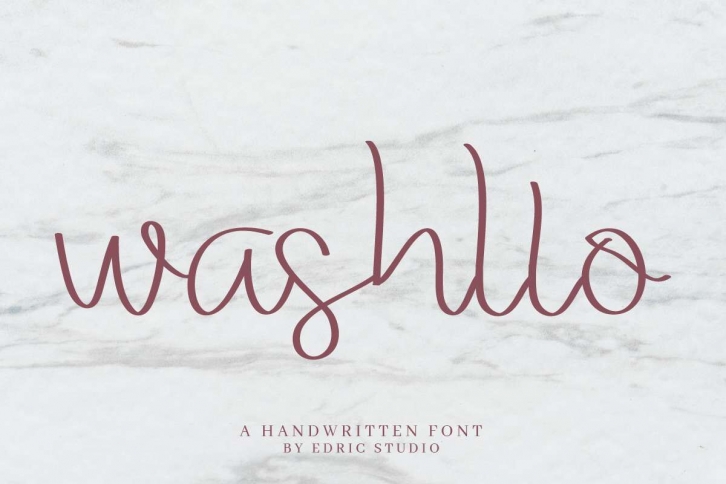
Okay, It is us again : EDRIC Studio. Please meet The newest font from our studio : Washllo Font
This is a handwritting script font, handcrafted from our Studio here in Garut and Bandung, Indonesia. The artists/designers of this beautiful tyeface is Yasri and Sarah Suci.
Washllo Font is an exclusive script font with monoline style. This font has a stunning characters set, perfectly managed with well spaced and kerning. The theme style of this font will elegant, vintage, stylish, sophisticated and classic pen brush calligraphic handwriting style. You wont find any where else, the font like Washllo Font